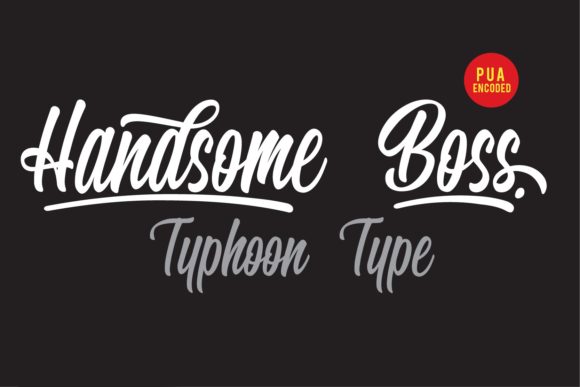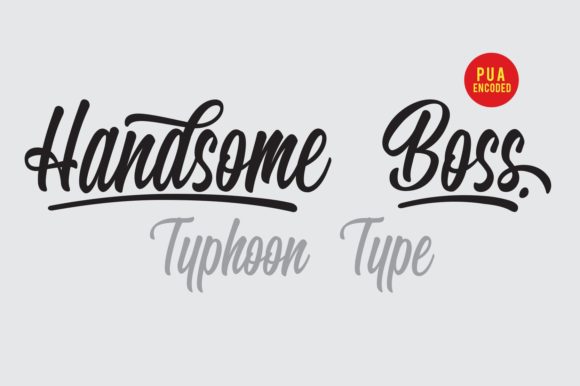
Handsome Boss Font
About Handsome Boss Font
Handsome Boss is a fun and bold handwritten font with a lot of authentic charm. Get inspired by its bold swashes!